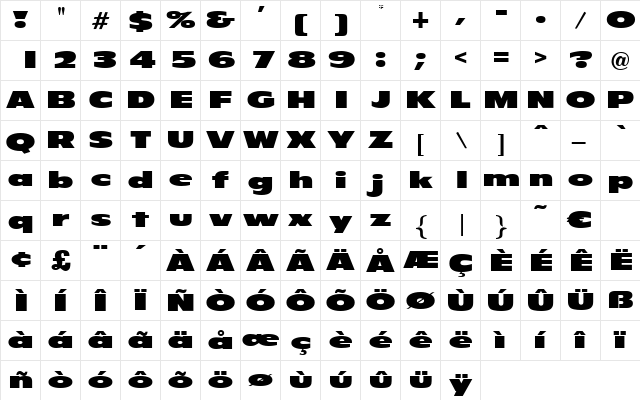
Finesse Regular Font Preview
Finesse Regular
Design Context for Finesse Typeface
Finesse offers clean, dependable letterforms without strong stylistic allegiance, making it a practical choice for designers who need flexibility.